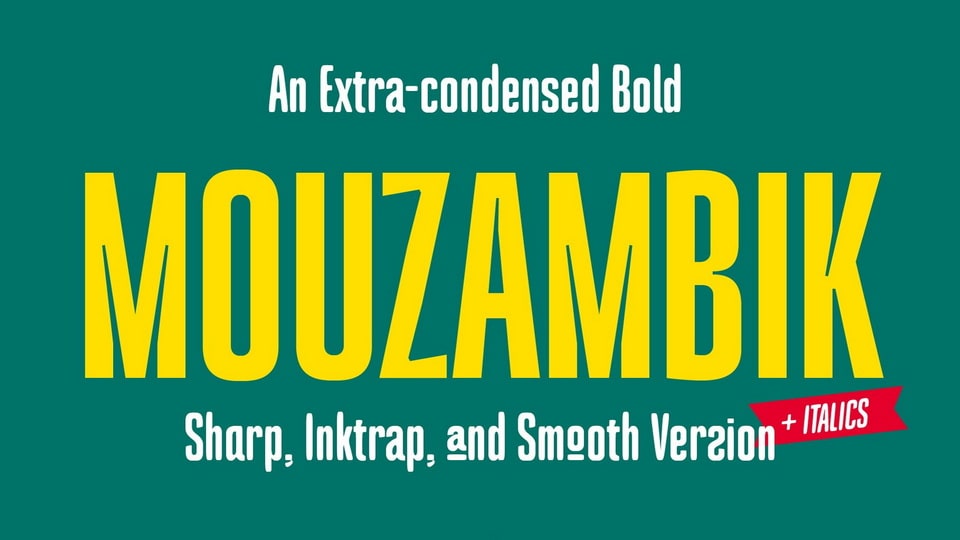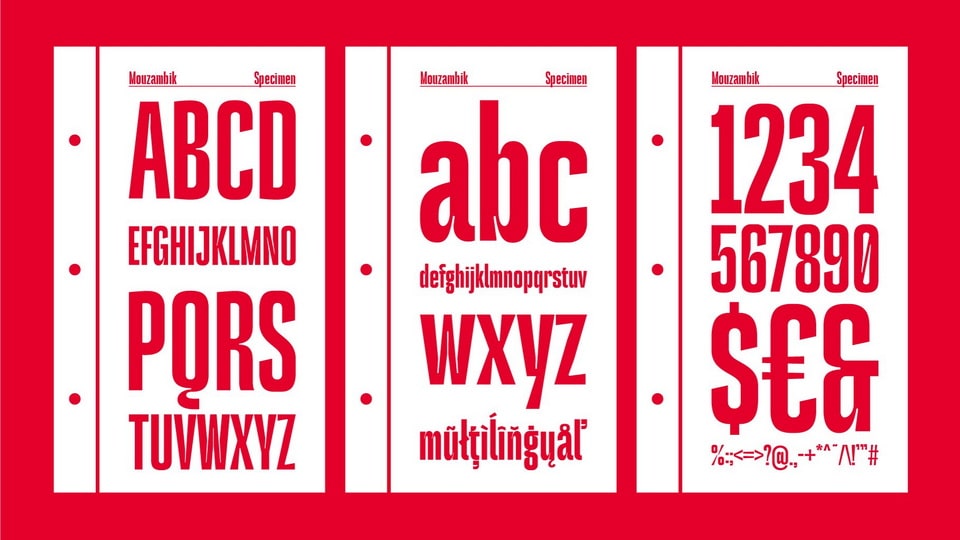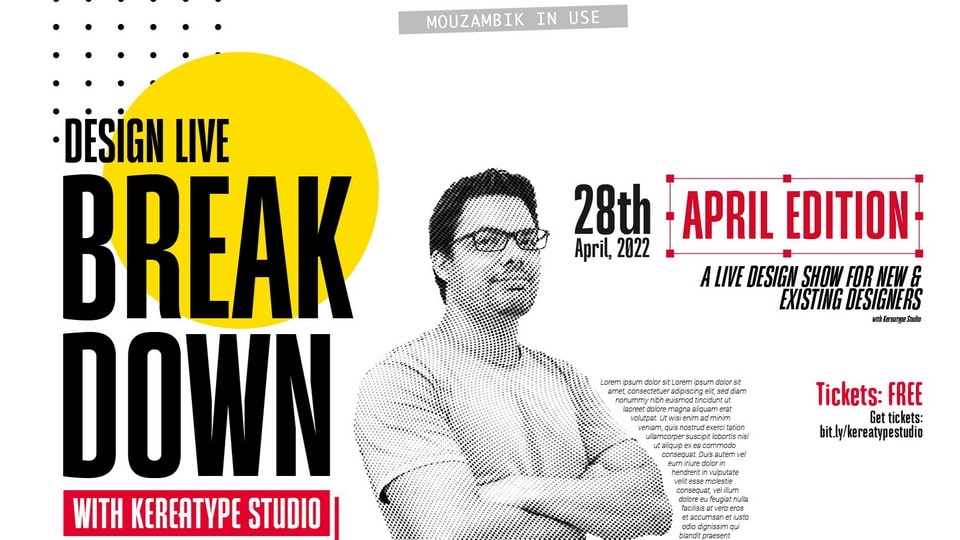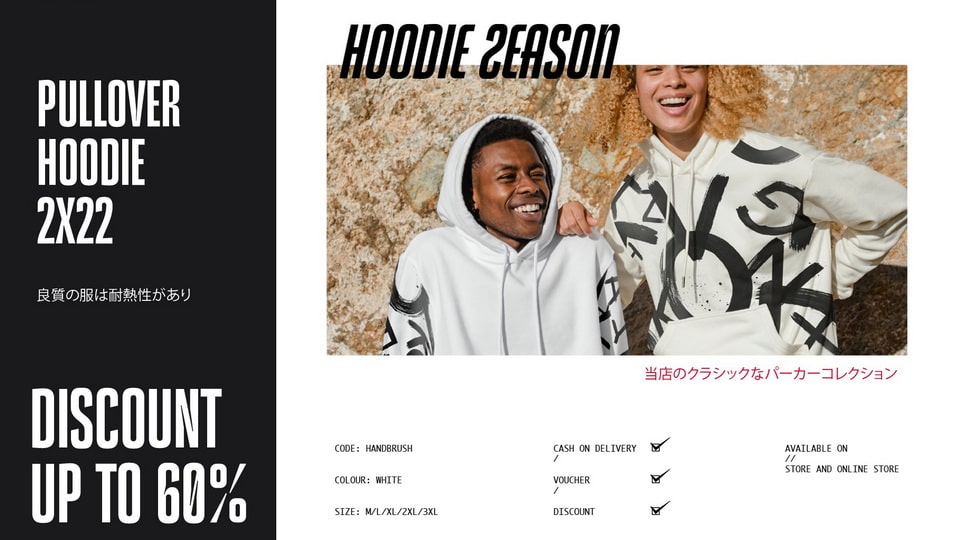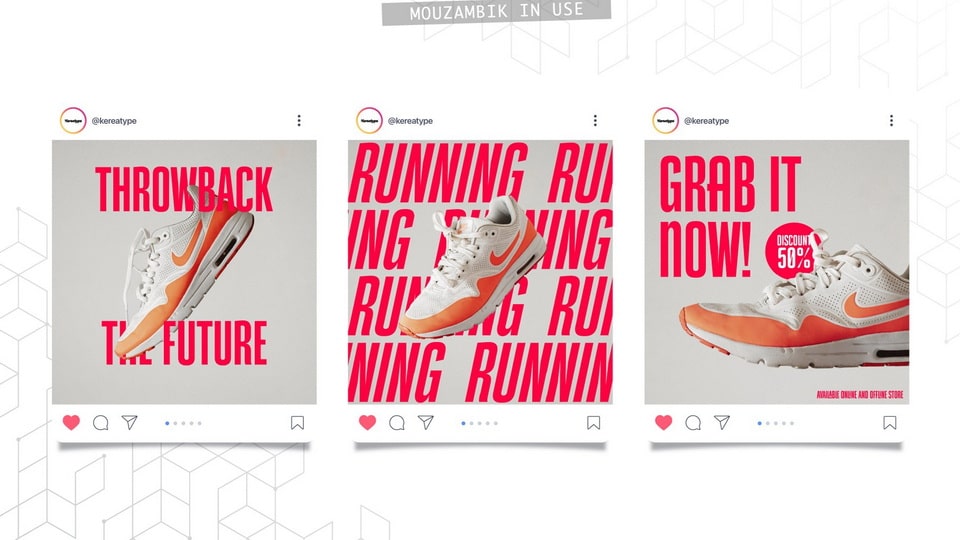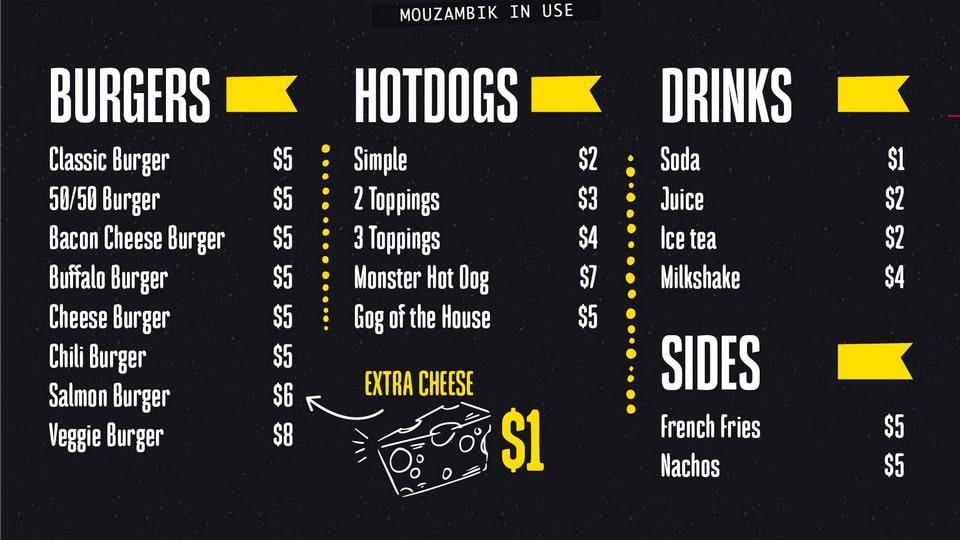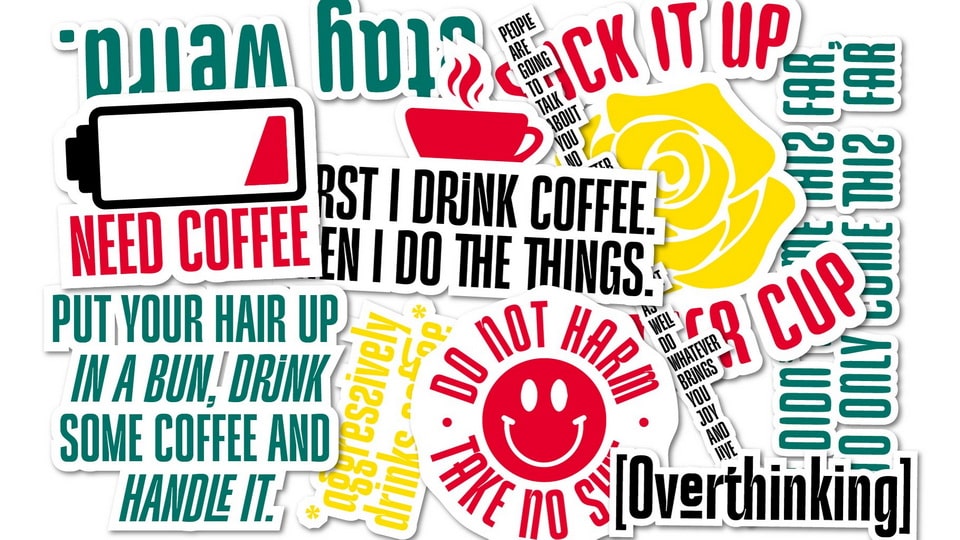
Mouzambik is a simple, condensed sans serif font with a bold and complex personality. Comes in 3 styles fonts: Regular, Inktrap, and Smooth with italics. It was purposely crafted to be used in large point sizes, although it doesn’t lose its magic in small point sizes.
Mouzambik font is perfect for headlines, billboards, magazines, websites, titles, posters, branding, and logos. With tons of ligatures, alternates, and other features to choose from, you can make your project stand out from the rest.